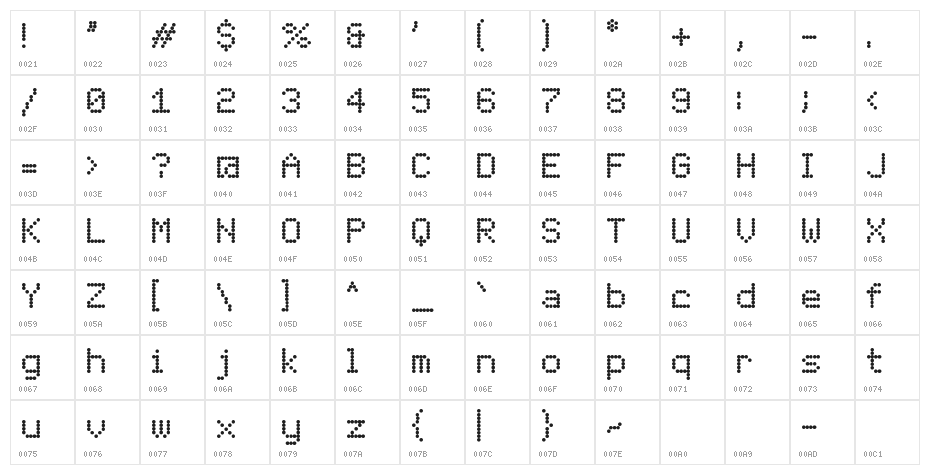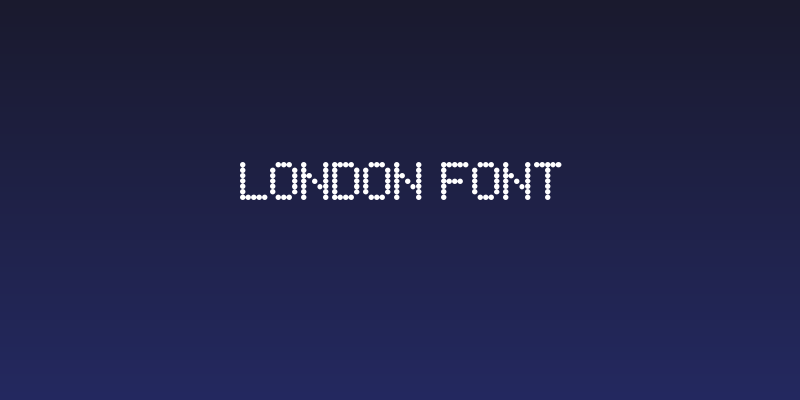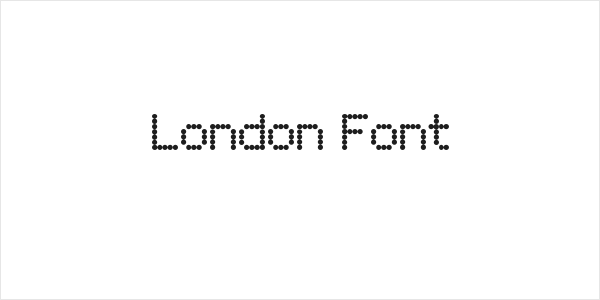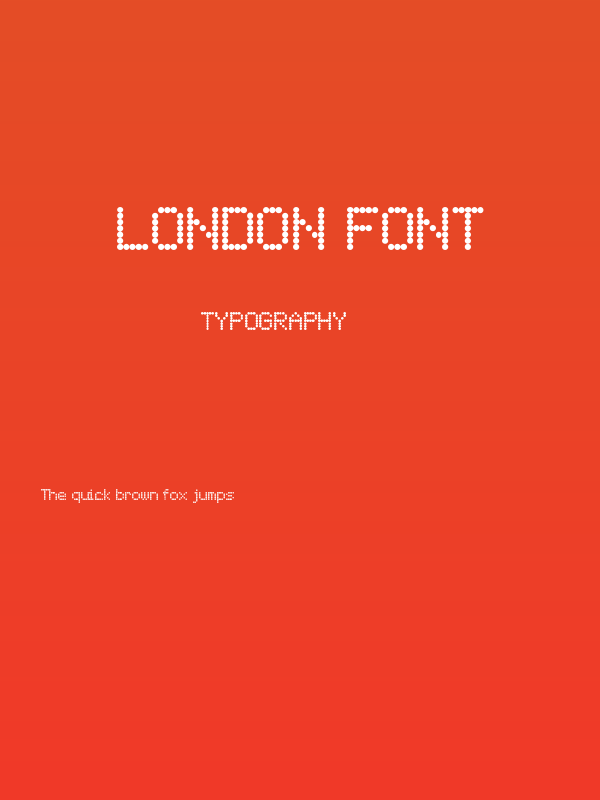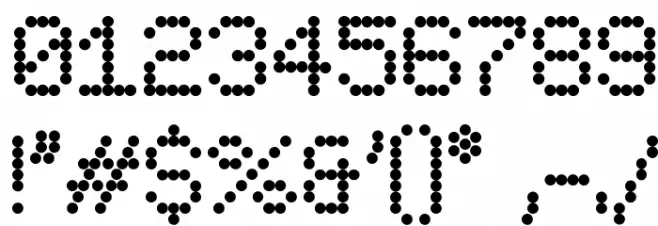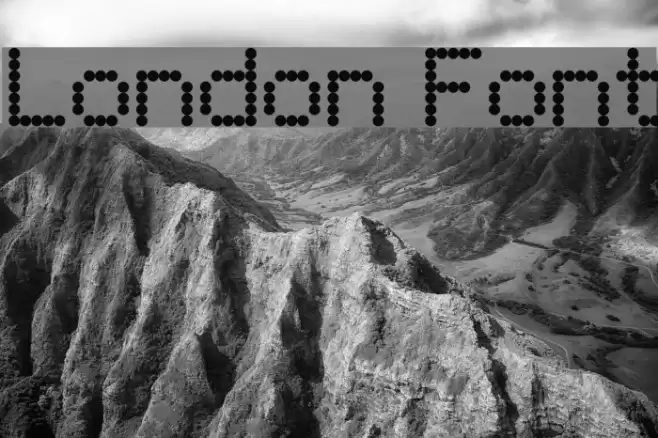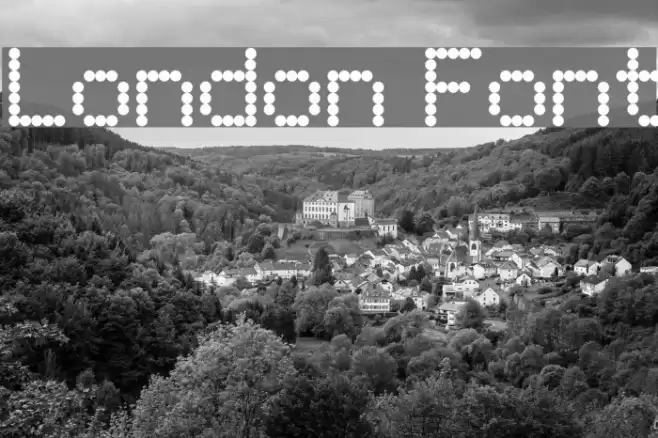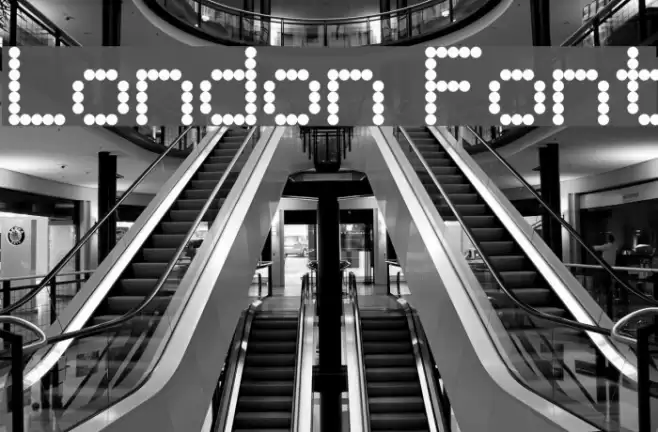
London Font Font
London Font Description
This font features a unique dotted design, where each character is composed of evenly spaced circular dots. The uppercase and lowercase letters maintain a consistent pattern, creating a cohesive and visually striking appearance. The numbers and special characters follow the same dotted style, ensuring uniformity across all elements. This font's playful and modern aesthetic makes it stand out, offering a fresh take on traditional typography. Its geometric structure and clear legibility make it suitable for various creative applications.
| Proposed Projects | Ideal for digital art, posters, children's books, and creative branding projects. |